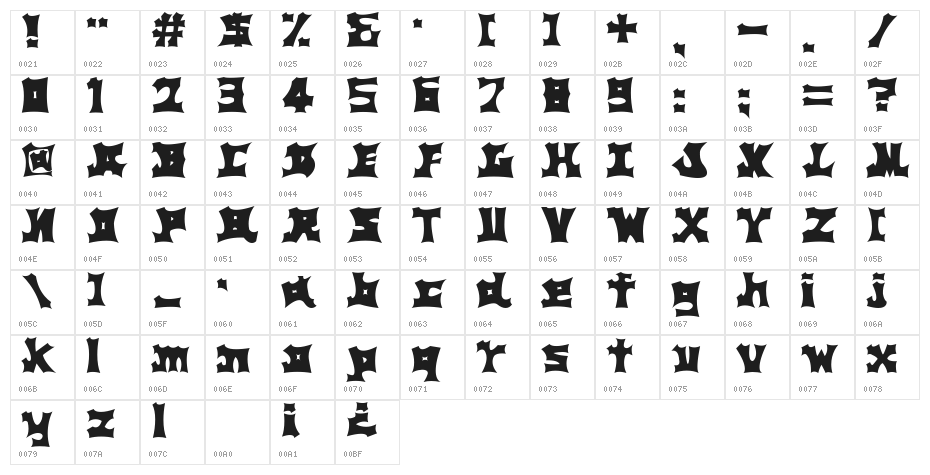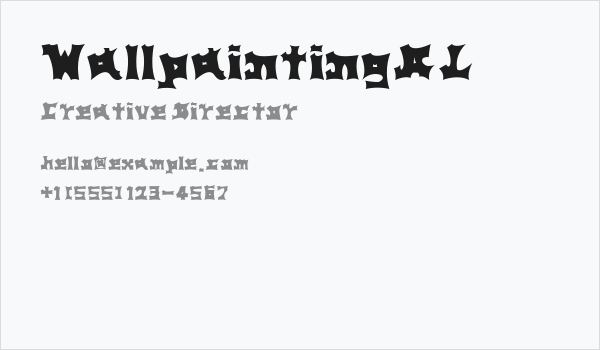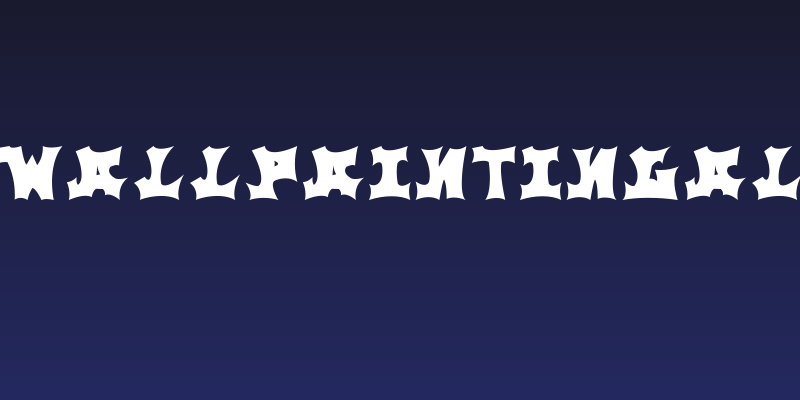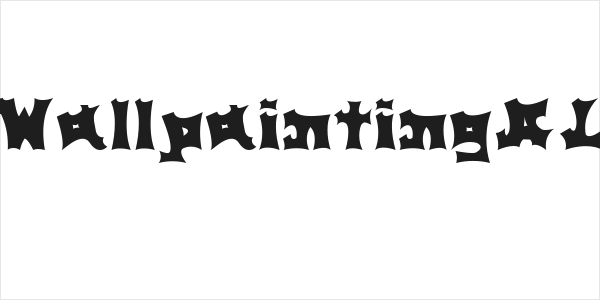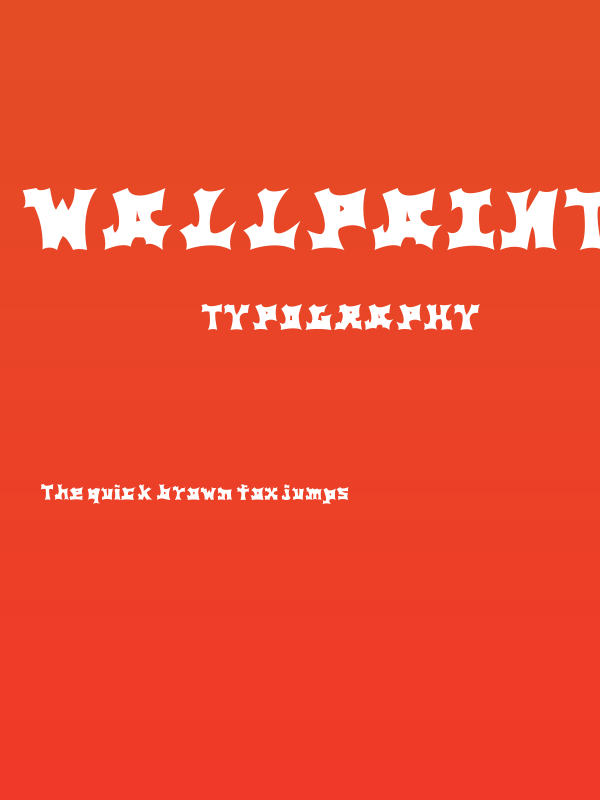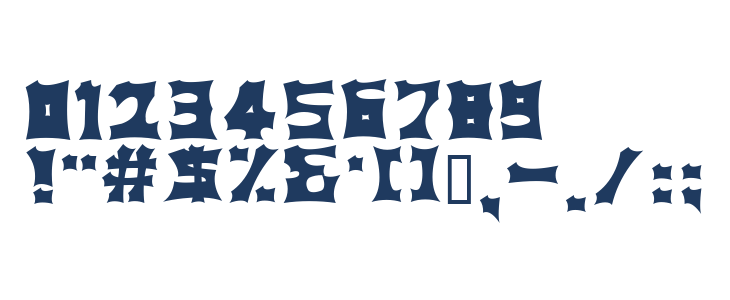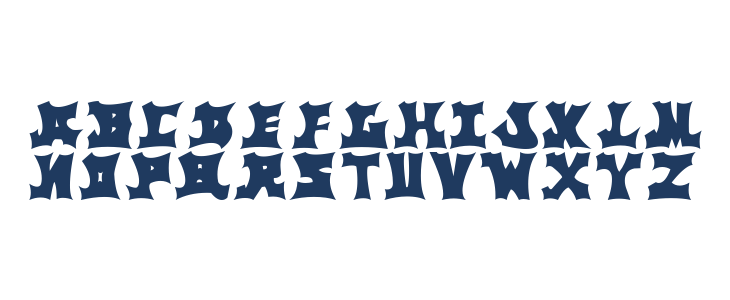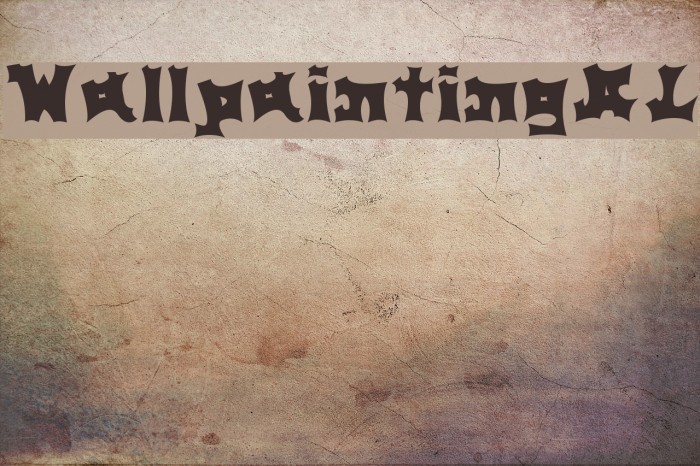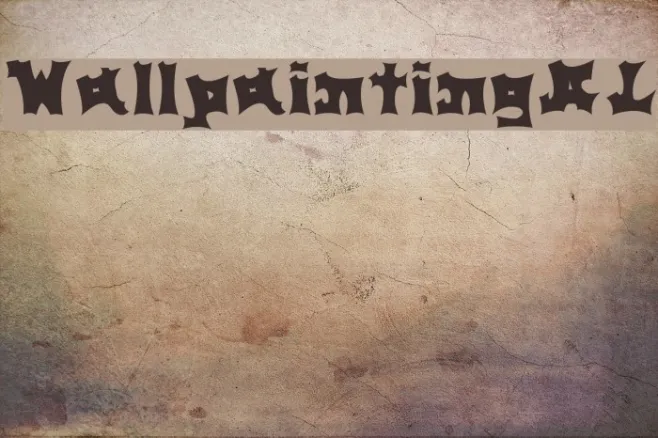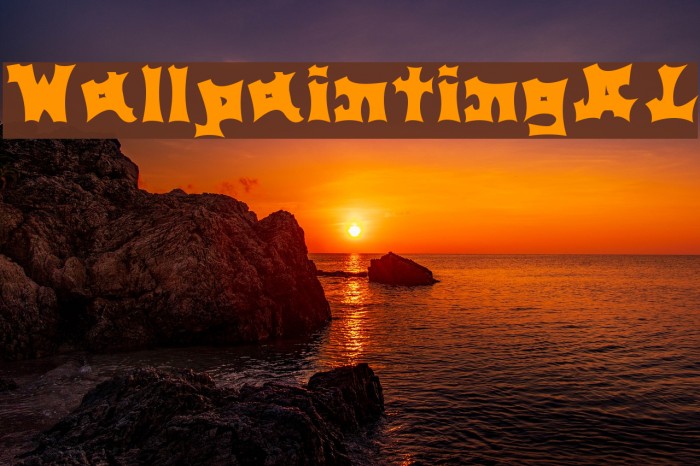
WallpaintingAL Font
WallpaintingAL Description
This font features a bold and dramatic style with sharp, angular edges and a distinct gothic influence. Each character is heavily stylized, creating a sense of movement and intensity. The uppercase and lowercase letters maintain a consistent design, with exaggerated serifs and pointed terminals. The numbers and special characters follow the same aesthetic, ensuring a cohesive look across all glyphs. This font's unique appearance makes it stand out, perfect for projects that require a strong visual impact.
| Overall Style | Gothic, Dramatic |
| Proposed Projects | Ideal for use in posters, album covers, tattoos, and any design requiring a strong, edgy aesthetic. |